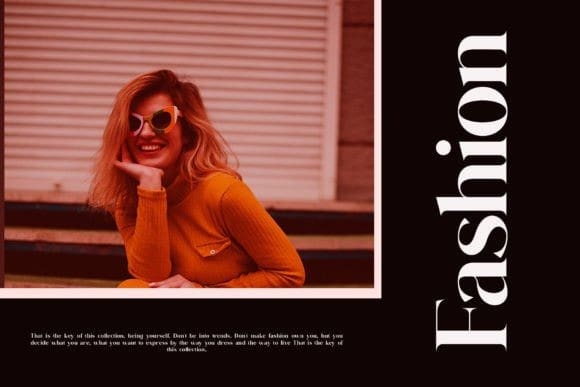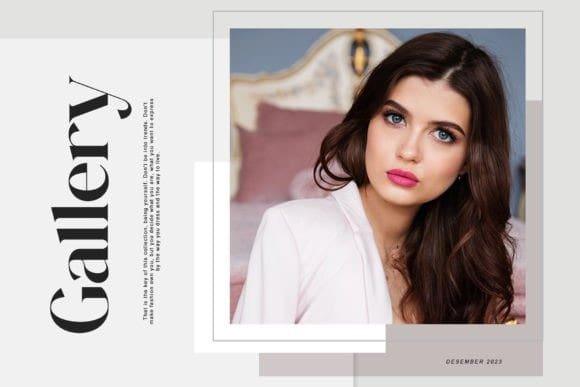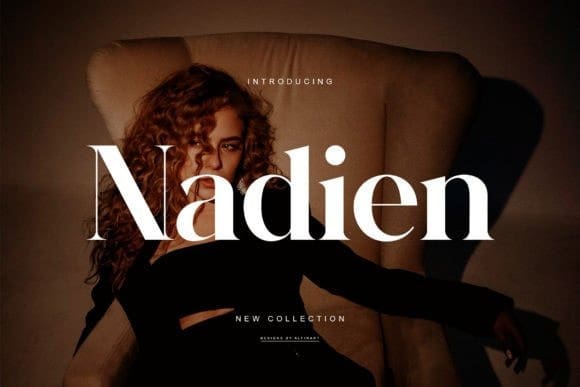
Nadien Font
Nadien Font –  Modern Sans Serif Typeface inspired by the famous minimalist logo perfect for design templates, brochures, videos, advertising branding, logos, invitations, layout design, elegant crafting, beauty design, and others.